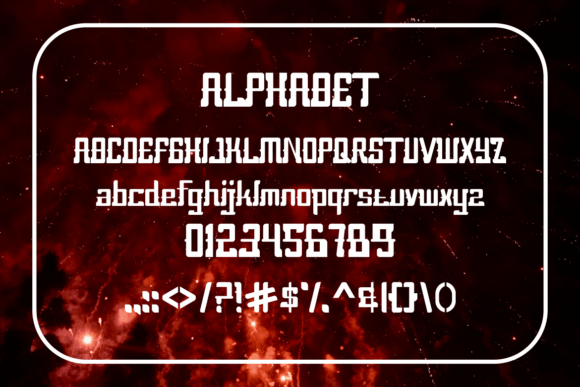
Saphi Bhalap Font
SAPHI BHALAP FONT SPECIMEN
Saphi Bhalap is a bold and authentic slab serif font suitable for any branding project like logo, t-shirt printing, esports, and many more. It will look outstanding in a wide range of contexts.